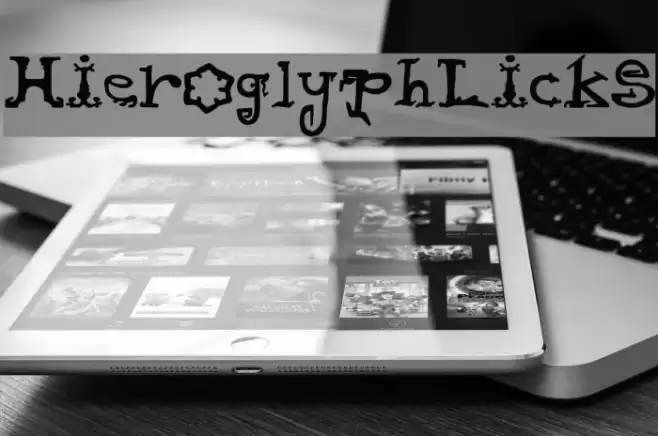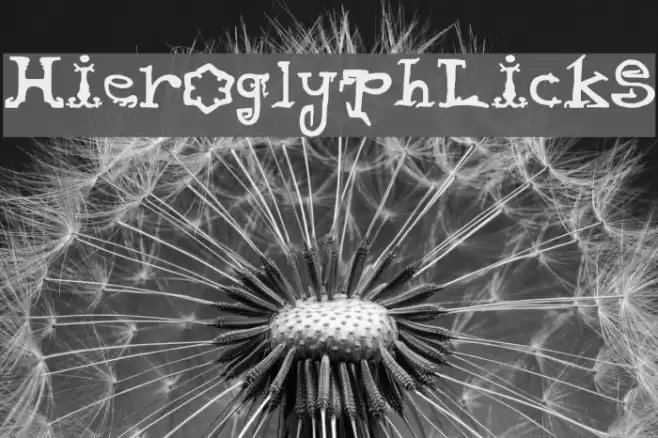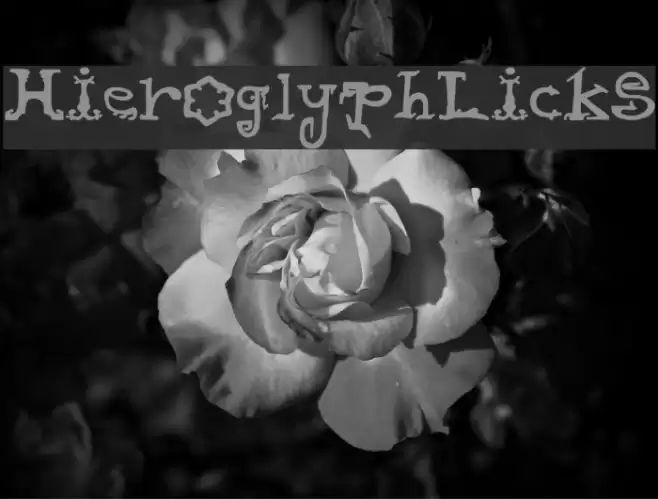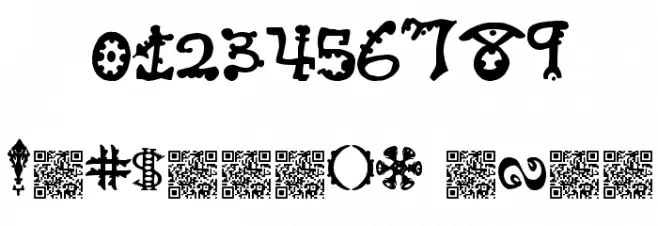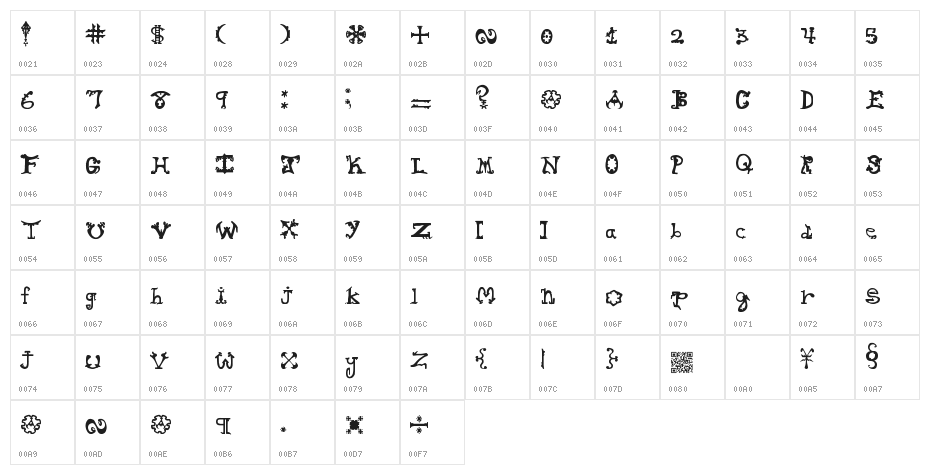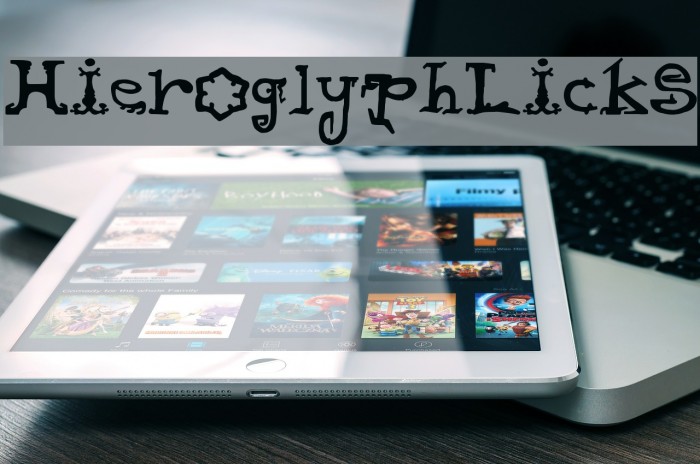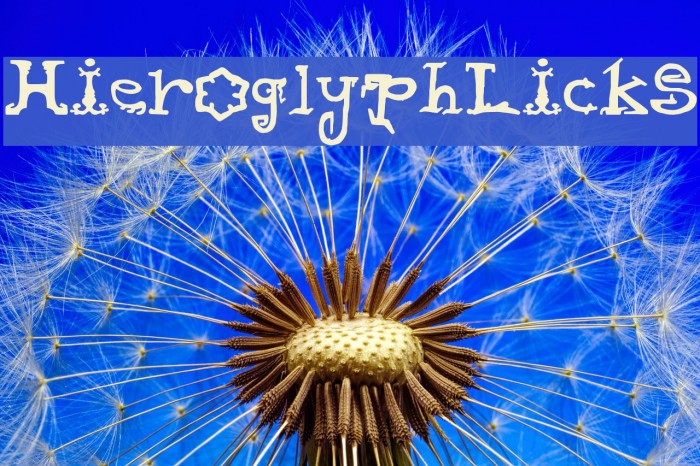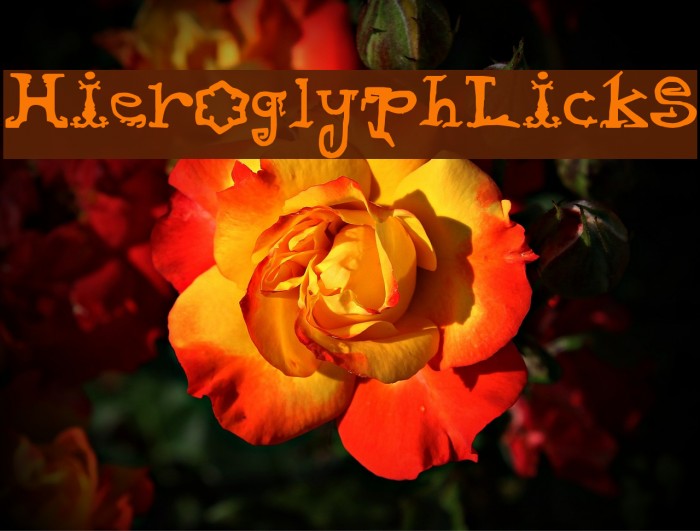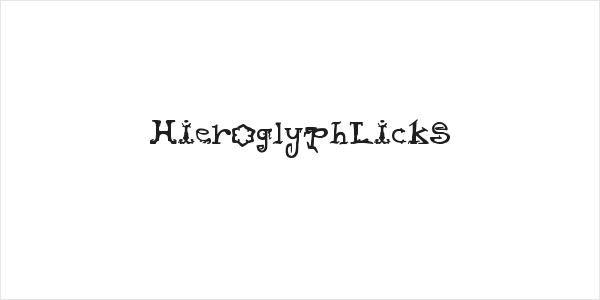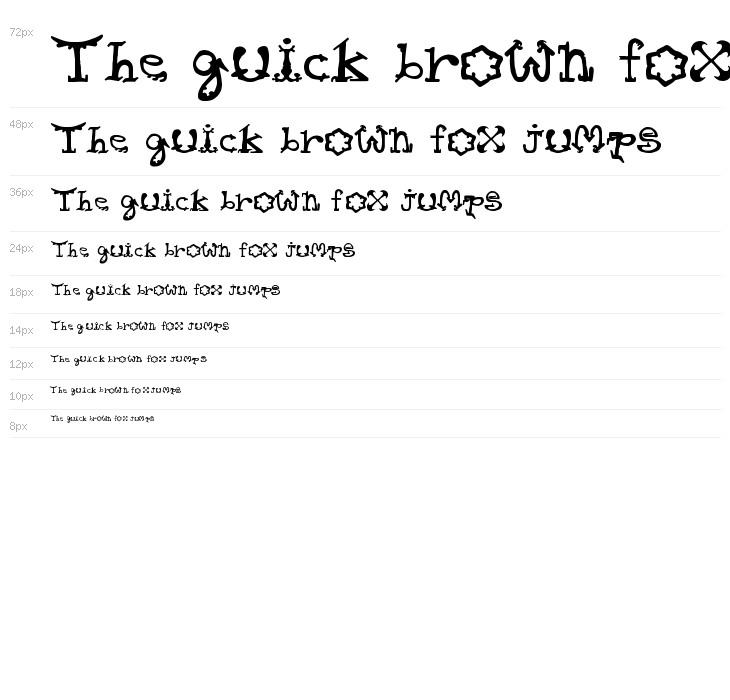
HieroglyphLicks Font
HieroglyphLicks Description
This font features a highly decorative and intricate design, reminiscent of ancient hieroglyphic symbols. Each character is adorned with unique embellishments, creating a complex and artistic appearance. The uppercase and lowercase letters maintain a consistent style, with swirling and pointed elements that give the font a mystical and exotic feel. Numbers and special characters are equally ornate, ensuring a cohesive look across all glyphs. The overall design is bold and eye-catching, making it suitable for projects that require a distinctive and artistic touch.
An intricate, hieroglyph-inspired decorative font with bold, artistic characters from Uncategorized fonts.
- Proposed Projects: Ideal for themed event invitations, fantasy book covers, or artistic posters.